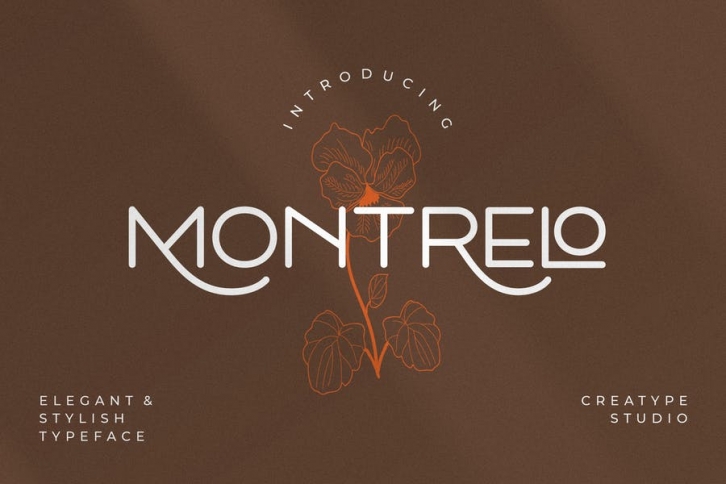
Montrelo a stylish modern sans serif font looks classy, elegant and sophisticated. The font very versatile that works great in large and small sizes.
Montrelo is perfect for branding projects, logo, wedding designs, social media posts, advertisements, product packaging, product designs, label, photography, watermark, invitation, stationery and any projects that need handwriting taste.
- Ton of glyphs
- Ligature & Alternate